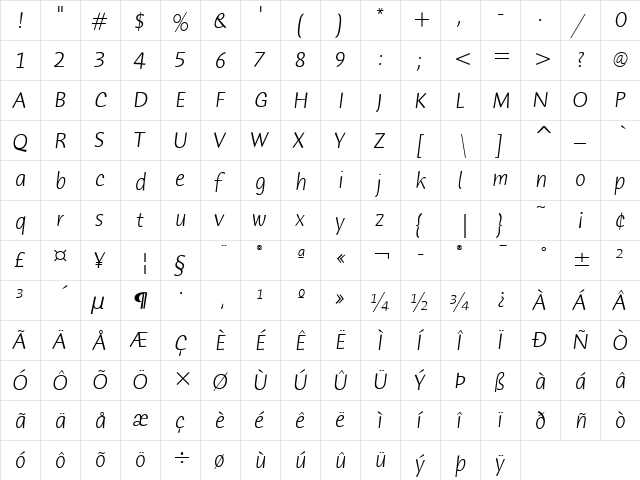
Humana Sans ITC Light Italic Font Preview
Design Context for Humana Sans ITC Typeface
Humana Sans ITC takes a measured approach to typography — its balanced proportions and neutral character make it a reliable workhorse for both digital and print work. Its italic angle brings a sense of urgency and motion to the letterforms. Its slender proportions lend an understated elegance to any composition.